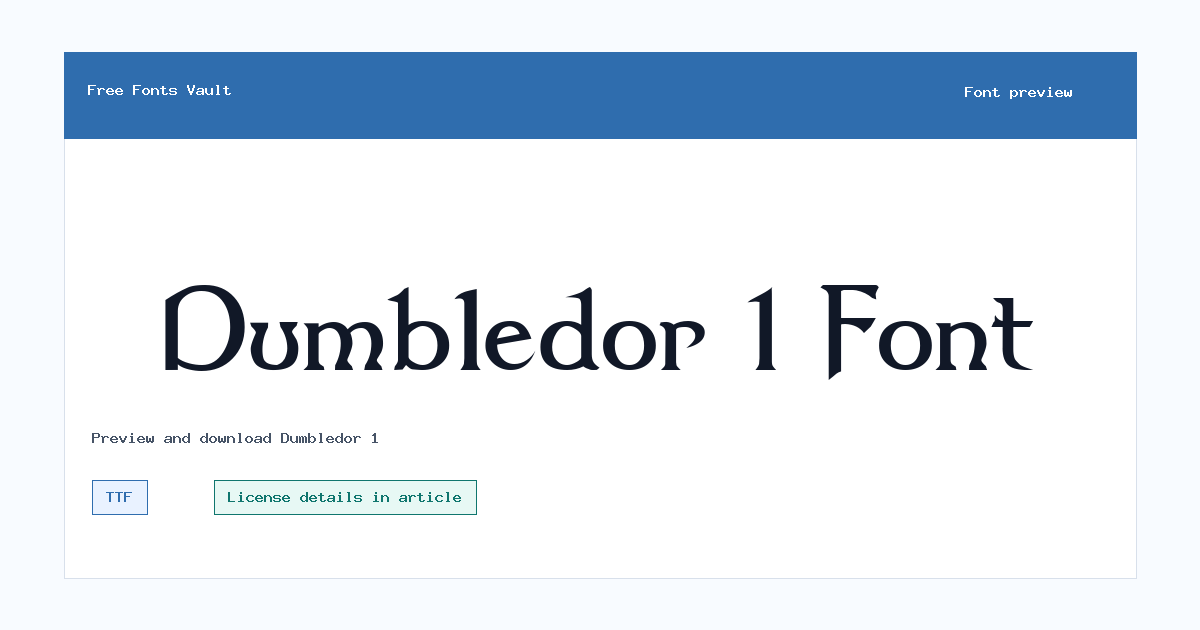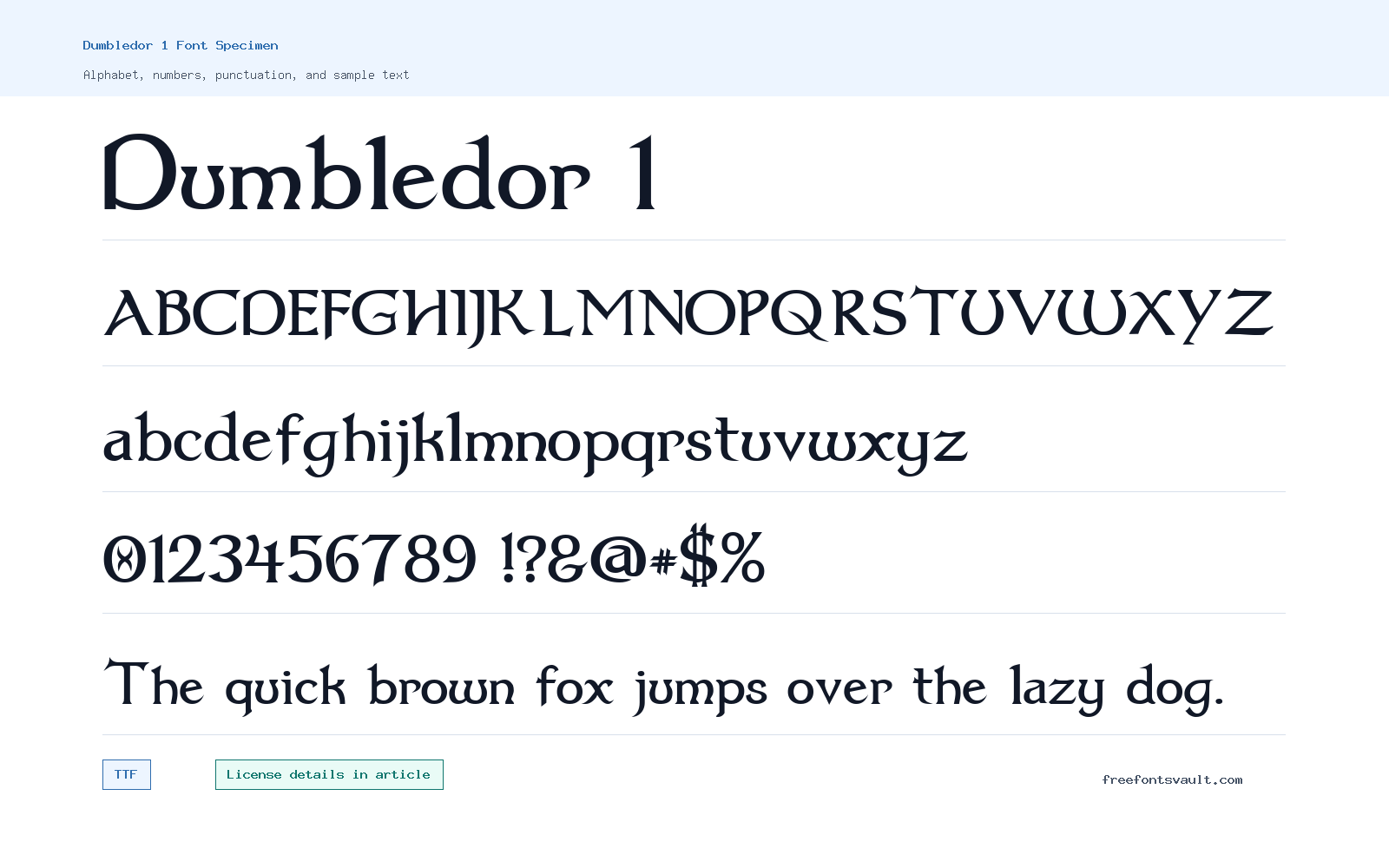
Dumbledor 1
- Designer ©GeM/FF
Dumbledor 1 font.
Dumbledor 1 is a decorative display font in TTF format, suited to short text that needs a distinctive fantasy-style look.
About Dumbledor 1 Font
Dumbledor 1 works best when the text is brief and the font can be shown at a larger size. Its personality is better suited to titles, labels, themed graphics, and poster-style designs than to long paragraphs. Use the preview box to test your exact words, especially if you plan to use names, all-caps headings, or punctuation-heavy text.
Dumbledor 1 should be treated as a decorative display font, especially if the lettering has a fantasy, storybook, or themed look in your preview. Keep it for names, titles, labels, poster headings, fan-style graphics, or short decorative lines where the type can be large enough to read comfortably.
Before using it in a finished graphic, test your exact words in the preview. Decorative fonts can change character quickly from one word to another, so check capitals, punctuation, numbers, and any repeated letters. If the title feels too busy, shorten the copy or pair it with a quieter companion font for supporting text.
- Decorative display character suited to short headings and themed text
- Fantasy-themed titles, posters, and event graphics
- Logos, labels, thumbnails, and short display text where readability can be checked at large size
The designer field lists ©GeM/FF. No foundry name or designer website is stated.
Is Dumbledor 1 good for body text?
It is better for short display text. For paragraphs, use a simpler companion font and keep Dumbledor 1 for headings or decorative words.
Who made Dumbledor 1?
The designer field lists ©GeM/FF. No additional author or foundry information is stated.